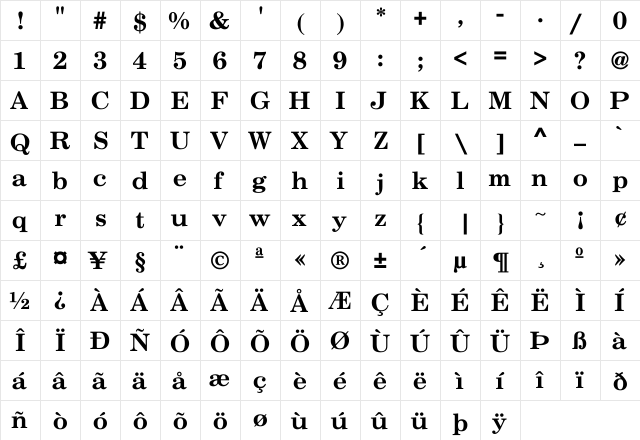
Bucolic Bold Regular
Design Context for Bucolic Bold Typeface
Bucolic Bold offers clean, dependable letterforms without strong stylistic allegiance, making it a practical choice for designers who need flexibility. The heavy weight commands attention and anchors typographic hierarchies.